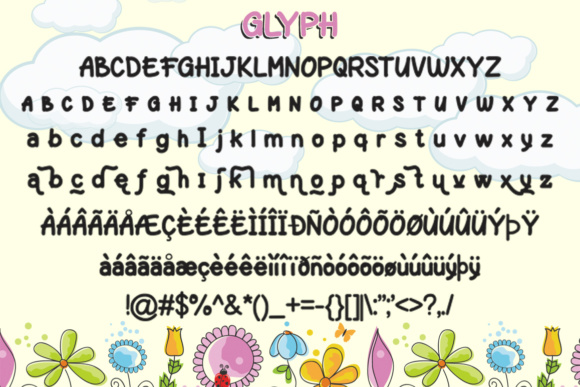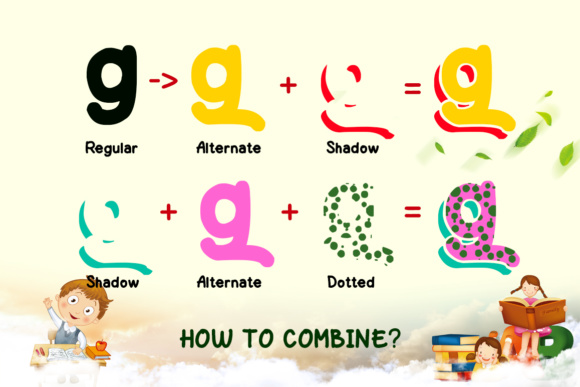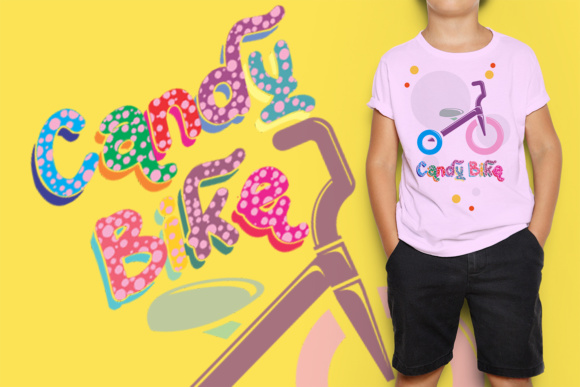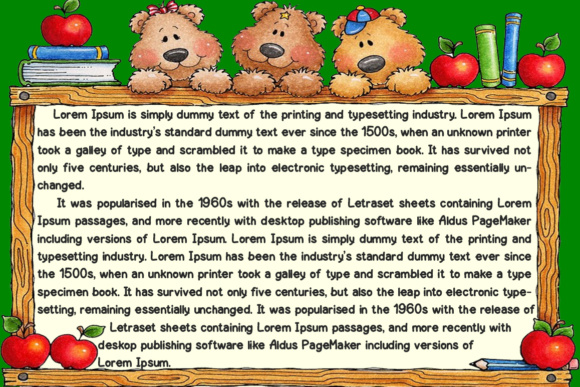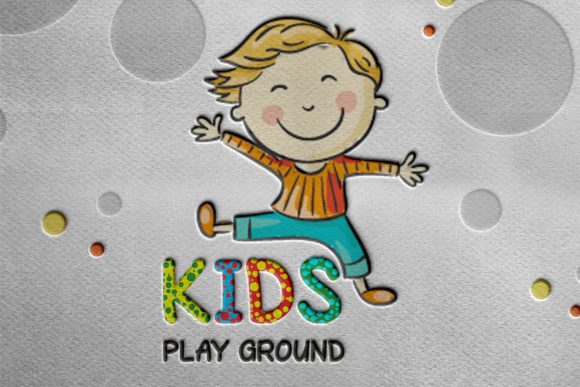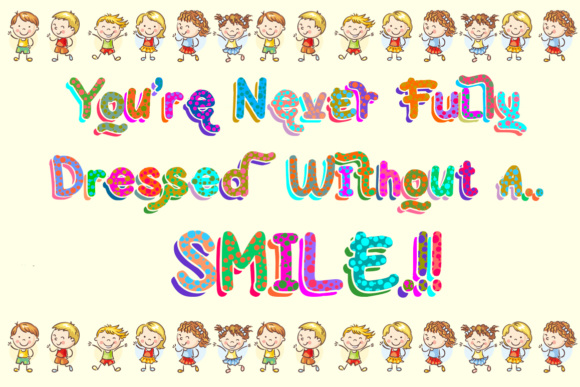
Introduction to Play on Font
Have you ever been working on a creative project, pouring your heart and soul into it, only to feel like something’s missing? You know, that spark that elevates your design from good to great? For me, it’s often the right font that makes all the difference. And today, I’m excited to share with you a game-changing design resource that’s perfect for your summer projects: the Play on Font.
As designers, we know how crucial high-quality fonts can be in bringing our vision to life. And the Play on Font is no exception. With its bold, fun, and bouncy style, it’s the perfect addition to any design project. Whether you’re working on a digital or print project, this font is sure to add a touch of personality and whimsy to your design.
Key Features of Play on Font
- Play on Font is a versatile design element that can be used in a wide range of creative projects, from web design to print materials.
Honest Review: Play on Font
As a designer, I’m always on the lookout for high-quality design resources to enhance my creative projects. Play on Font is one such resource that caught my attention recently. In this review, I’ll share my honest thoughts on what works well and what could be improved.
What works well: ✨ Play on Font offers a wide range of fonts that are perfect for creative projects. The fonts are designed to be versatile and can be used in various contexts, from logos to UI elements. The quality of the fonts is exceptional, and they’re perfect for designers who want to add a professional touch to their work.
What works well: ✨ Another great feature of Play on Font is that it offers transparent background options for many of its fonts. This is a game-changer for designers who need to use fonts on images or other backgrounds.
Limitations: ⚠️ Another limitation is that some of the fonts may not be suitable for certain design applications, such as small text sizes or complex layouts.
Overall, I’m impressed with Play on Font and its potential to become a go-to design resource for designers. The free download option is a bonus, and the transparent background options are a great feature. While there are some limitations, I believe Play on Font is definitely worth checking out.
Play on Font
Play on Font’s high-quality design resource is perfect for designers looking to add a unique touch to their work. With a transparent background, you can easily overlay the font onto any image or design element.
Play on Font is a versatile design resource that can be used for a variety of creative projects. With its high-quality design and transparent background, you can create unique and eye-catching designs.
Tips and Use Cases
Some common use cases for Play on Font include creating social media graphics, presentations, and reports. You can also use the font to add a unique touch to your website or blog.
Some tips for getting the most out of Play on Font include experimenting with different font sizes and colors, and using the font in combination with other design elements.